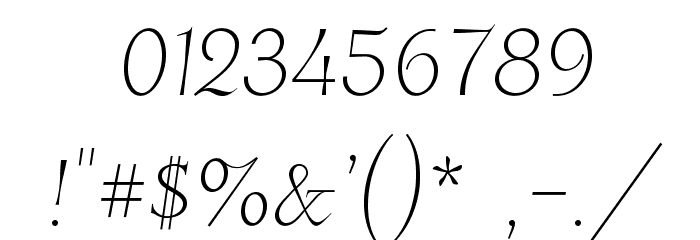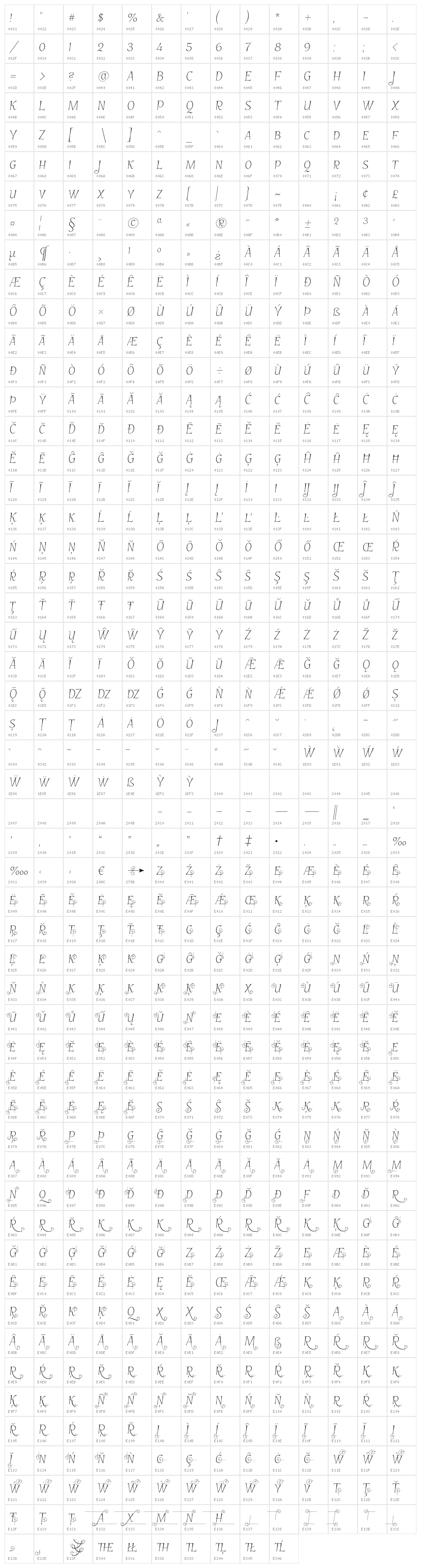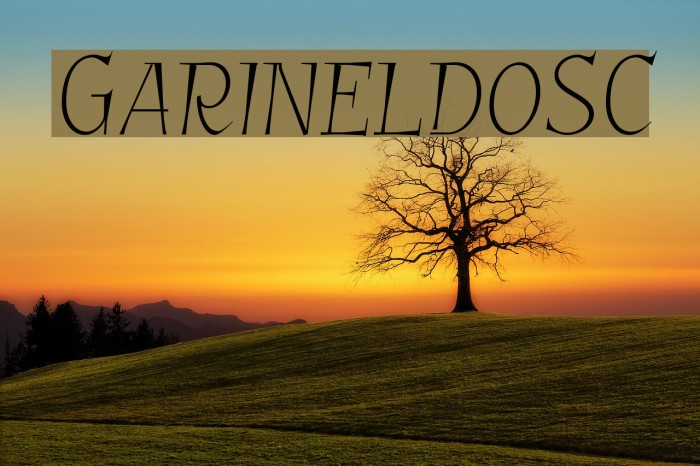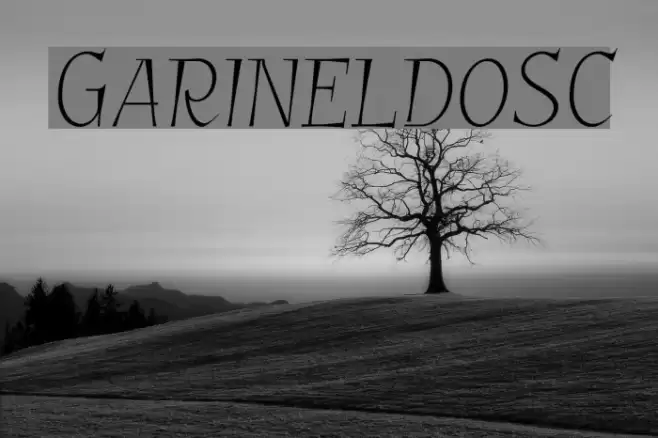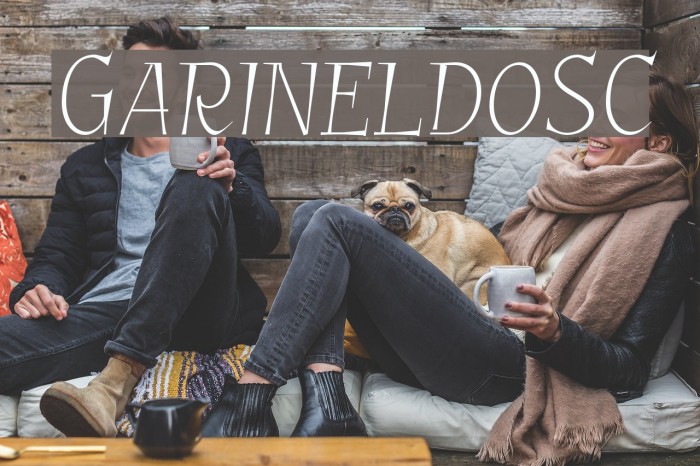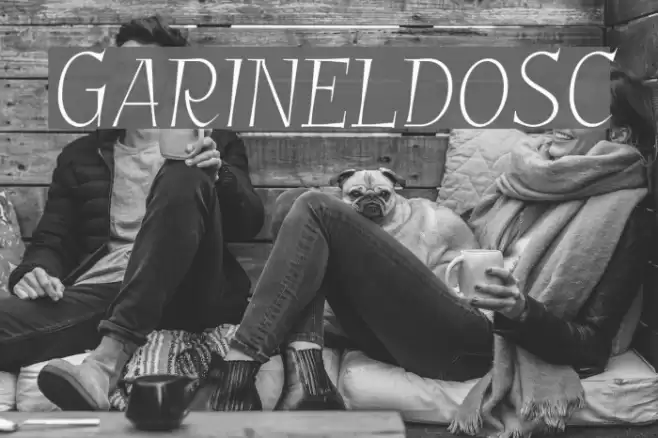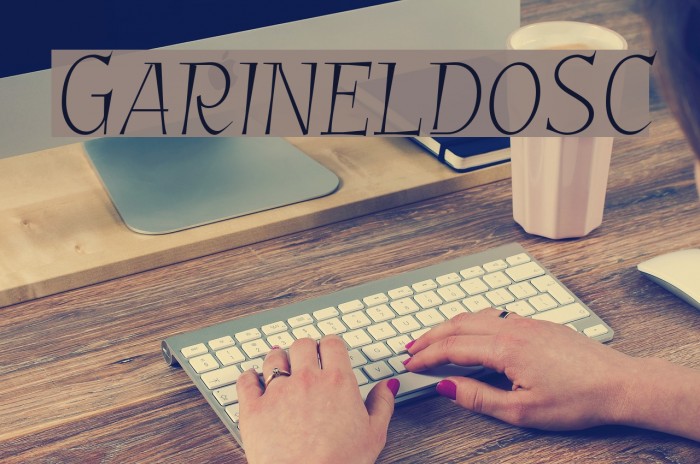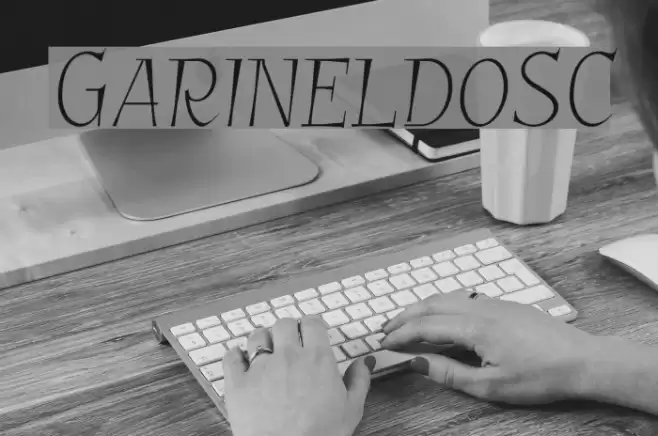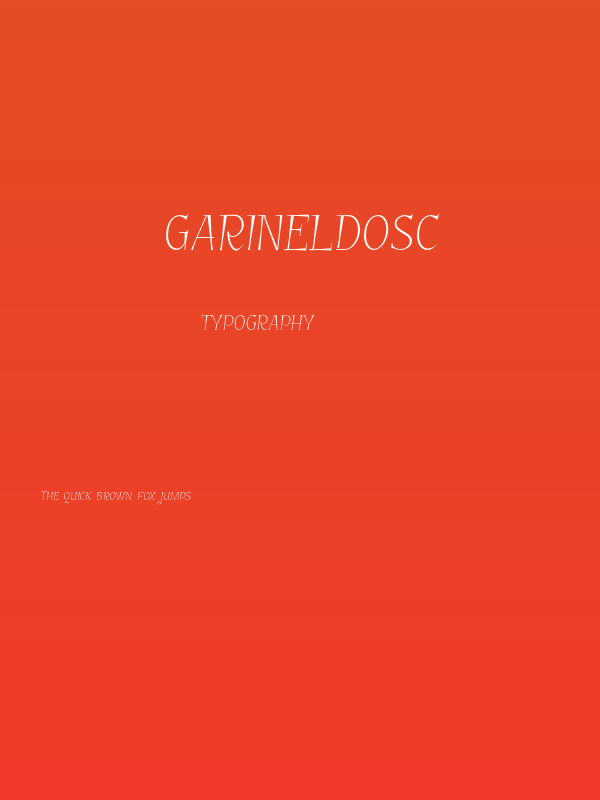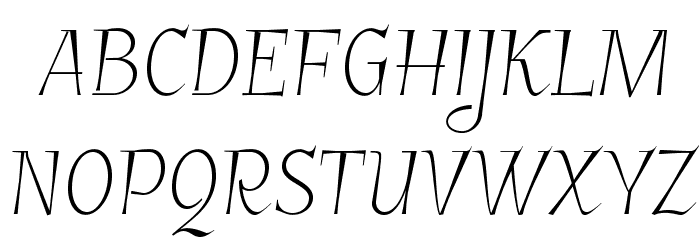
GarineldoSC Font
GarineldoSC Description
This font features a sophisticated and elegant design, characterized by its flowing, cursive style. The letters are slightly slanted, giving a sense of movement and grace. The strokes are thin and delicate, with subtle variations in thickness that add to its refined appearance. The uppercase letters are particularly ornate, with flourishes that enhance their decorative quality. The lowercase letters maintain the same elegant style, ensuring consistency throughout. Numbers and special characters are designed with the same attention to detail, making this font versatile for various uses.
| Use Case | Logos, Invitations, Editorial Design |
| Proposed Projects | Ideal for wedding invitations, elegant branding, luxury product packaging, and high-end editorial design. |